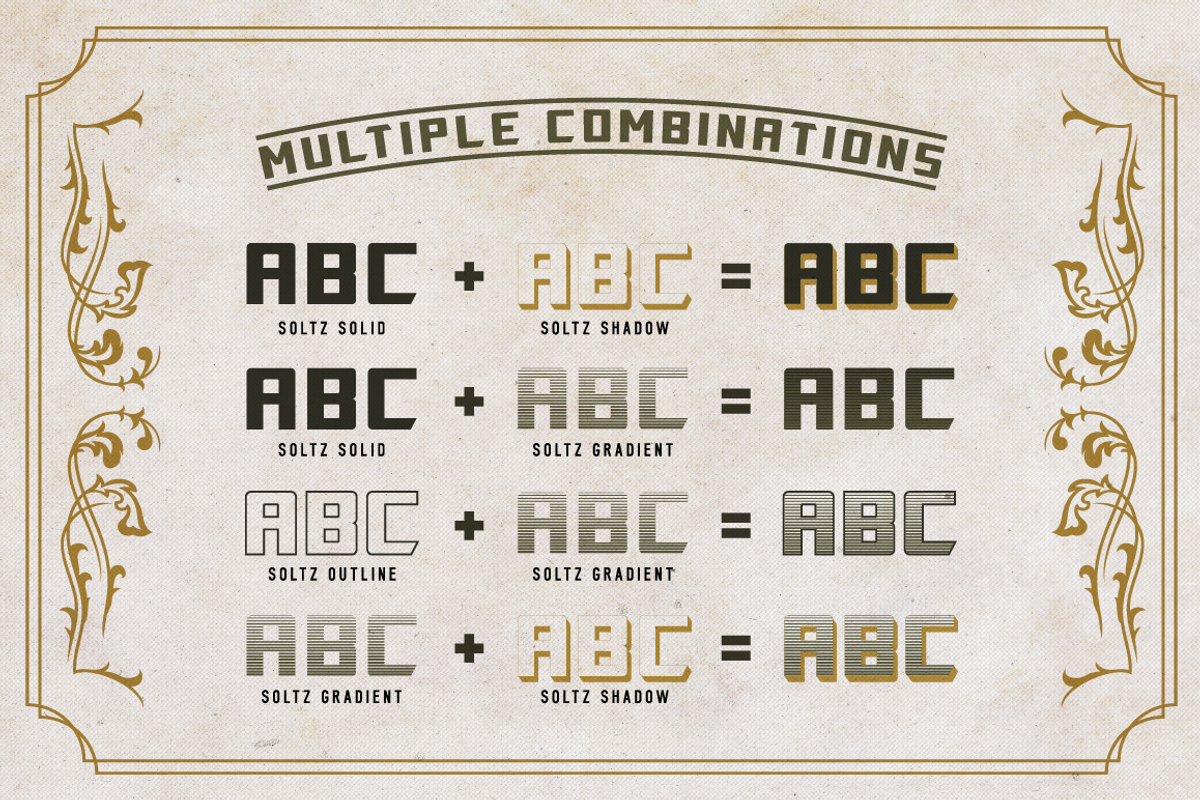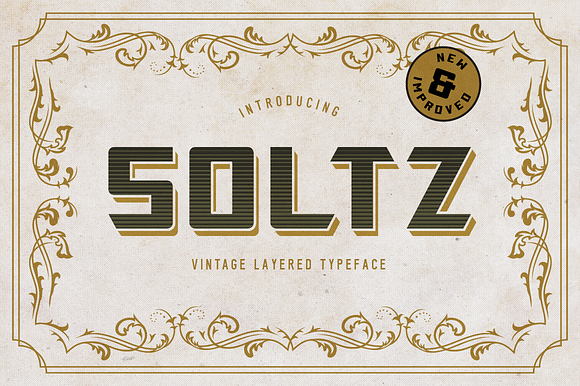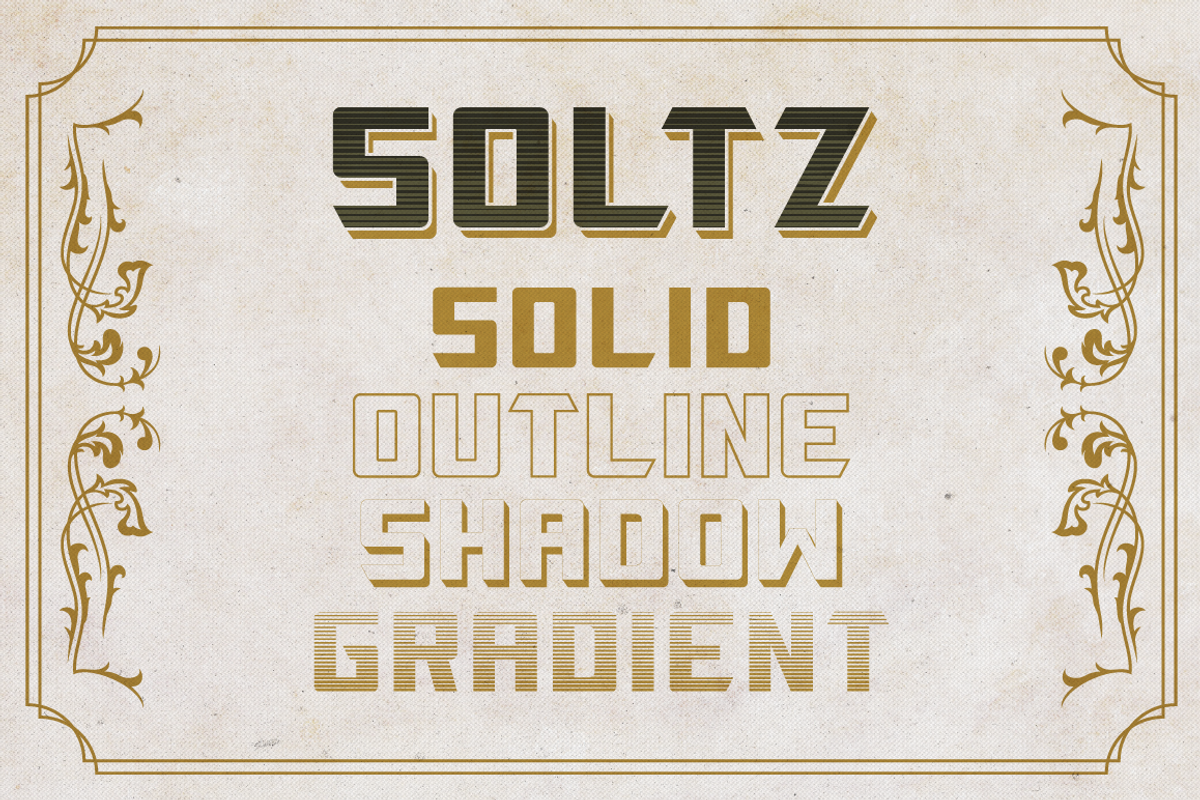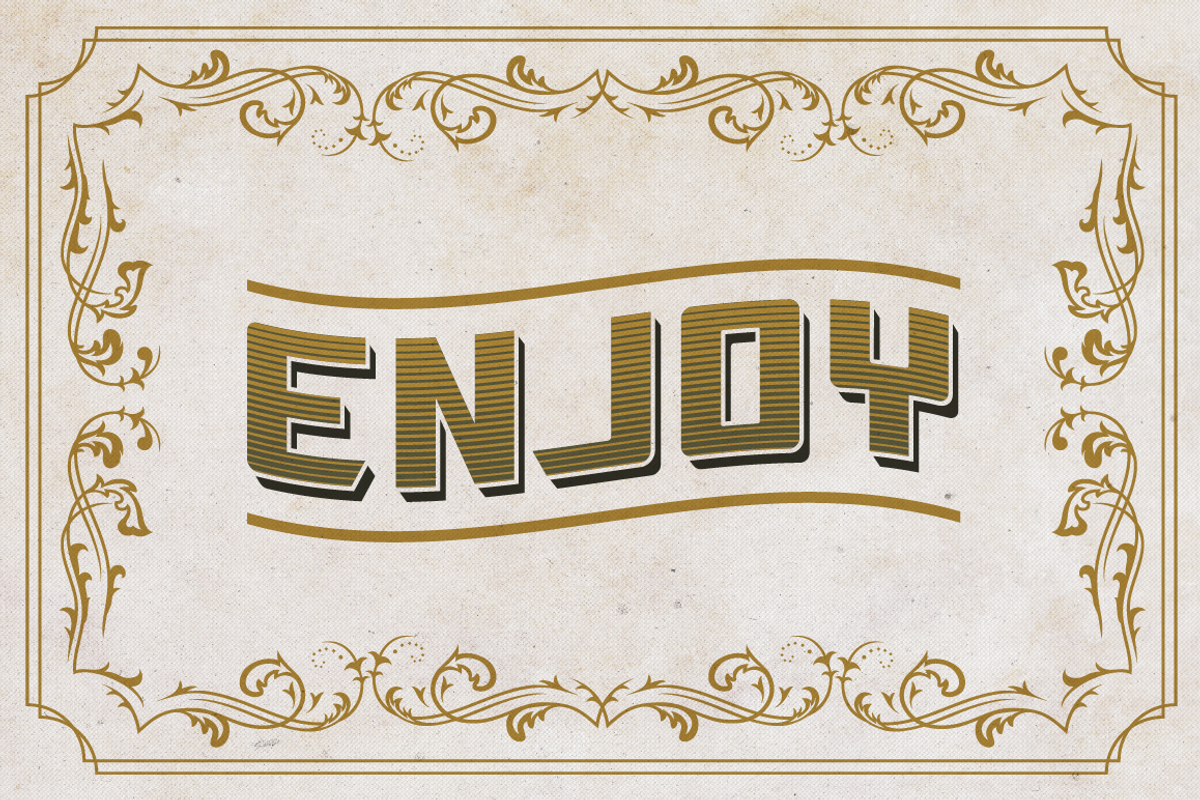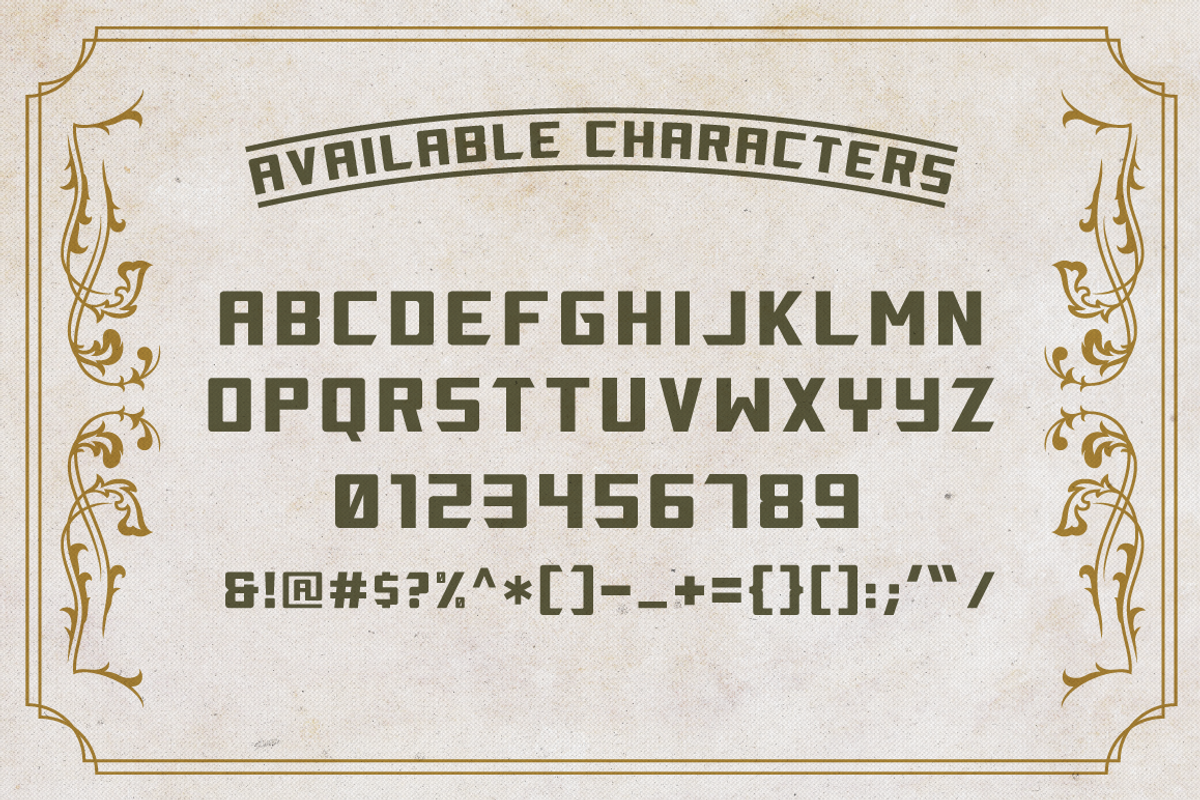
Soltz Vintage Layered Typeface
Introducing Soltz, a layered typeface inspired by vintage hand painted sign advertisements found in Atlantic City, NJ. Featuring 4 stackable styles that easily combine to make a wide variety of typography effects. From Logos, T-shirts, Retro Posters, Prints, Cards, or Package designing, Soltz is the perfect fit for a touch of vintage style to any project.
4 Styles (Solid, Outline, Shadow, & Gradient)
Alternative T & Y Characters
Numerals, Punctuation, and Special Characters
- All Caps Characters
- Alternative T & Y Characters
- Numerals, Punctuation, and Special Characters